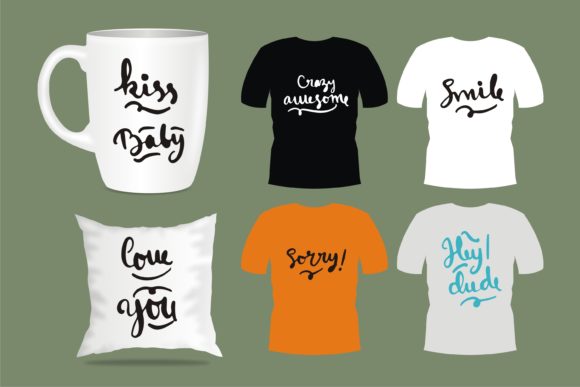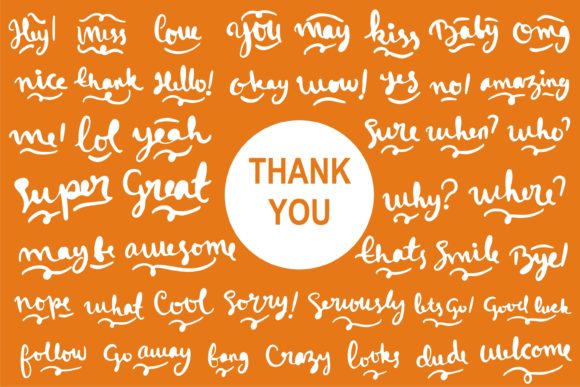
The Cute Speech Font: A Cool and Creative Asset for Designers
I’ll never forget the time I was working on a project for a client’s children’s book. I had the illustrations, the story was written, and I was ready to start designing the layout. But as I began to add text, I realized that I just couldn’t find the right font. It had to be playful, fun, and engaging, but also clear and easy to read. That’s when I stumbled upon the Cute Speech font, and let me tell you, it was a game-changer! 😊
An Honest Review of Cute Speech
So, what makes Cute Speech so special? Here are a few things I love about this font:
• ✨ It’s incredibly versatile – whether you’re working on a children’s book, a craft project, or a social media graphic, Cute Speech fits right in.
• ✅ The characters are well-designed and visually appealing, with a perfect balance of cuteness and sophistication.
• 🎉 It comes with a range of glyphs and stylistic alternates, making it easy to add personality and flair to your designs.
Of course, no font is perfect, and Cute Speech does have a few small quirks:
• 🤔 Some of the characters can be a bit tricky to read at smaller sizes, so it’s best to use it for headlines or larger text.
The Story Behind Cute Speech
Cute Speech was designed by a team of creatives who wanted to create a font that was both fun and functional. They were inspired by the world of children’s illustration and education, and wanted to create a font that would bring a smile to people’s faces. The result is a font that’s both cute and clever, with a range of glyphs and special characters to keep you creative.